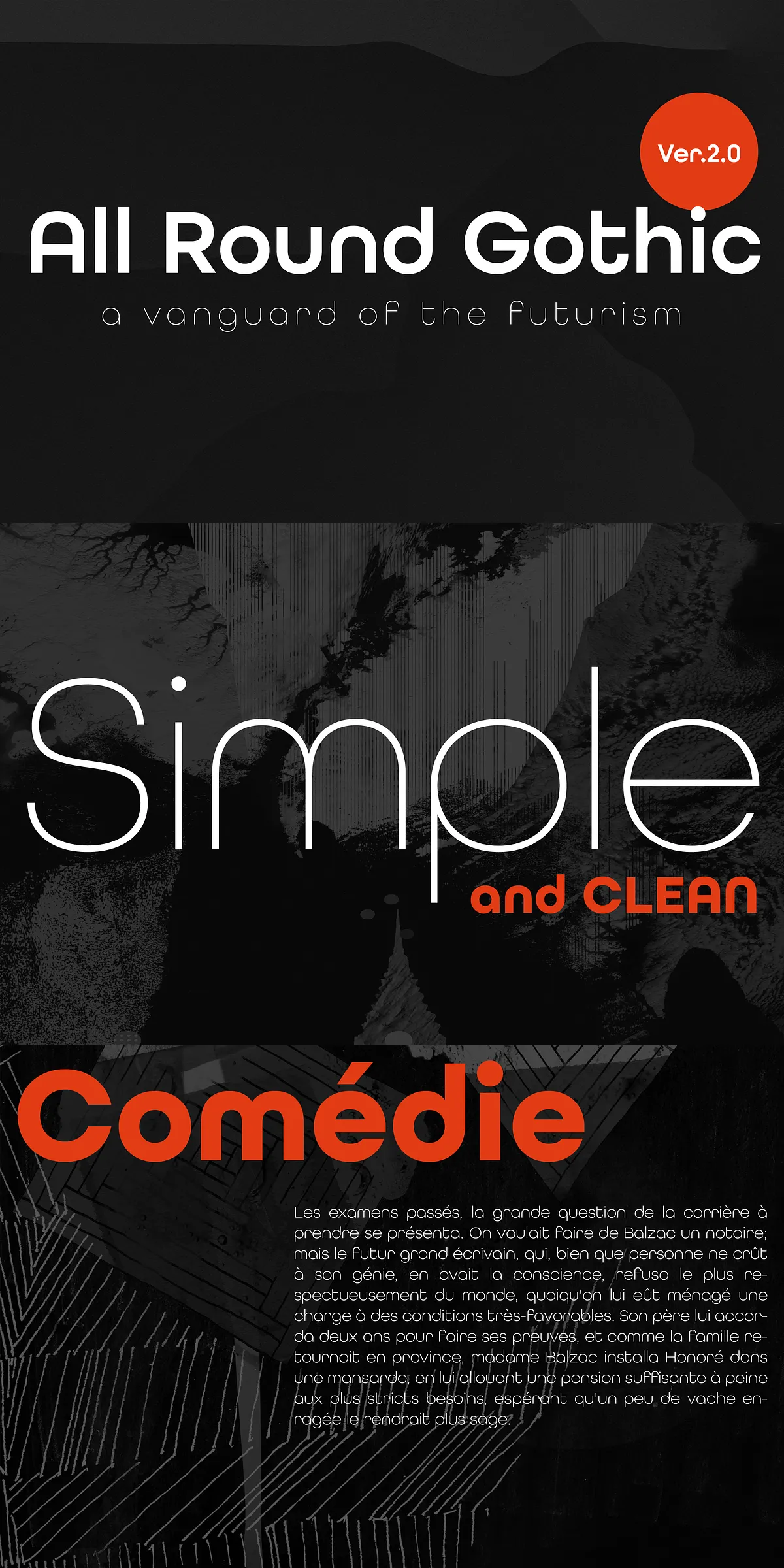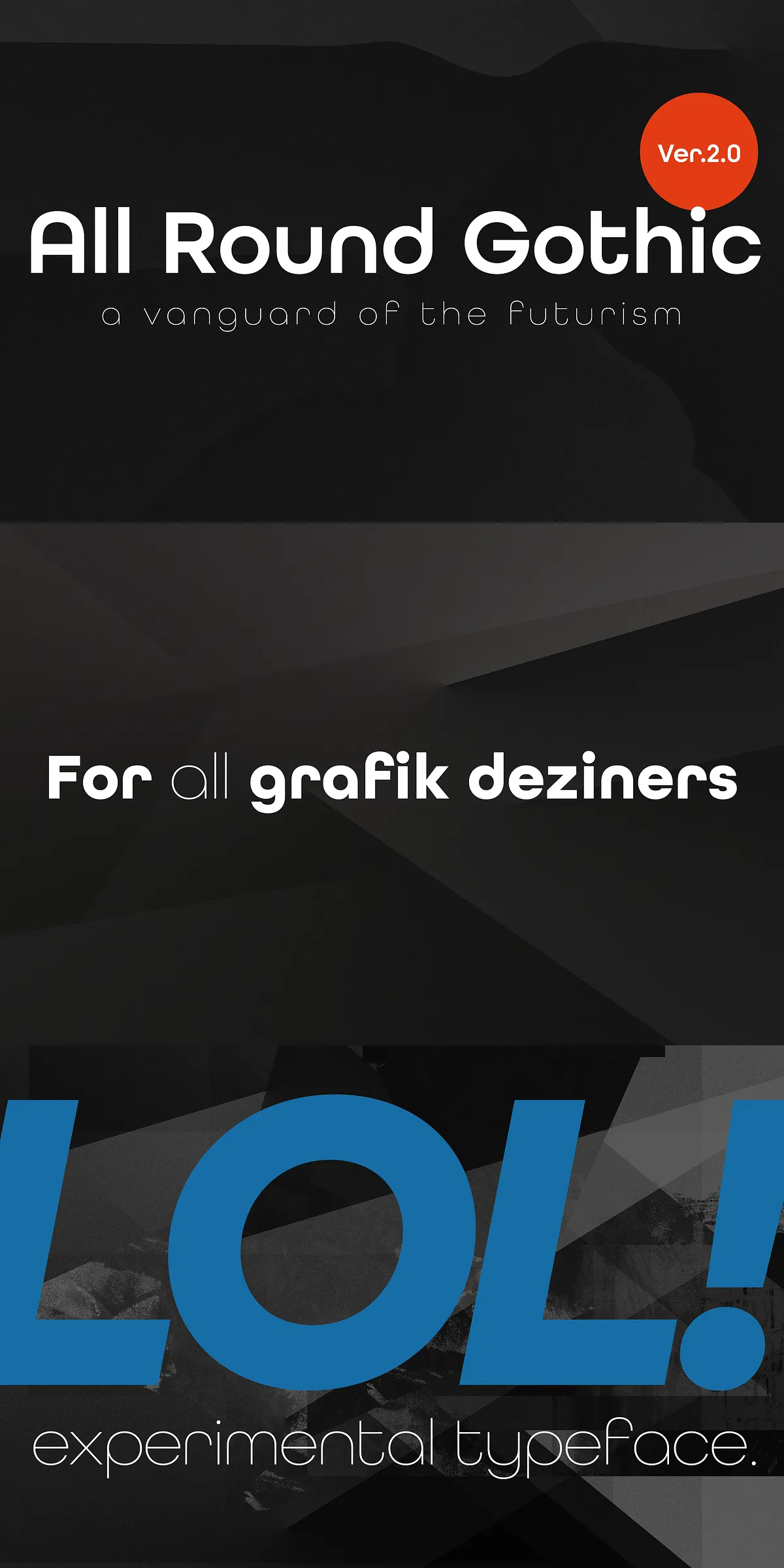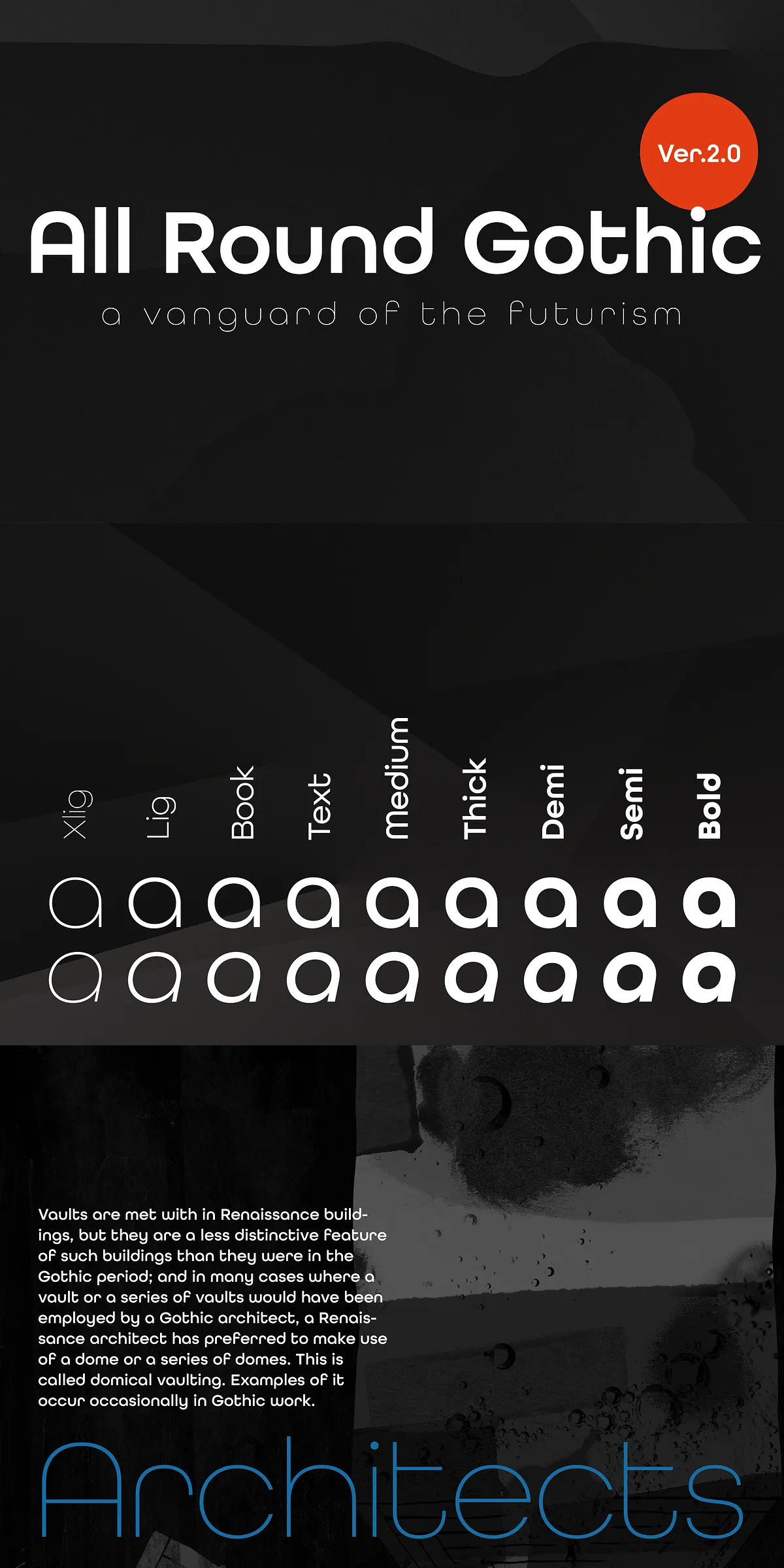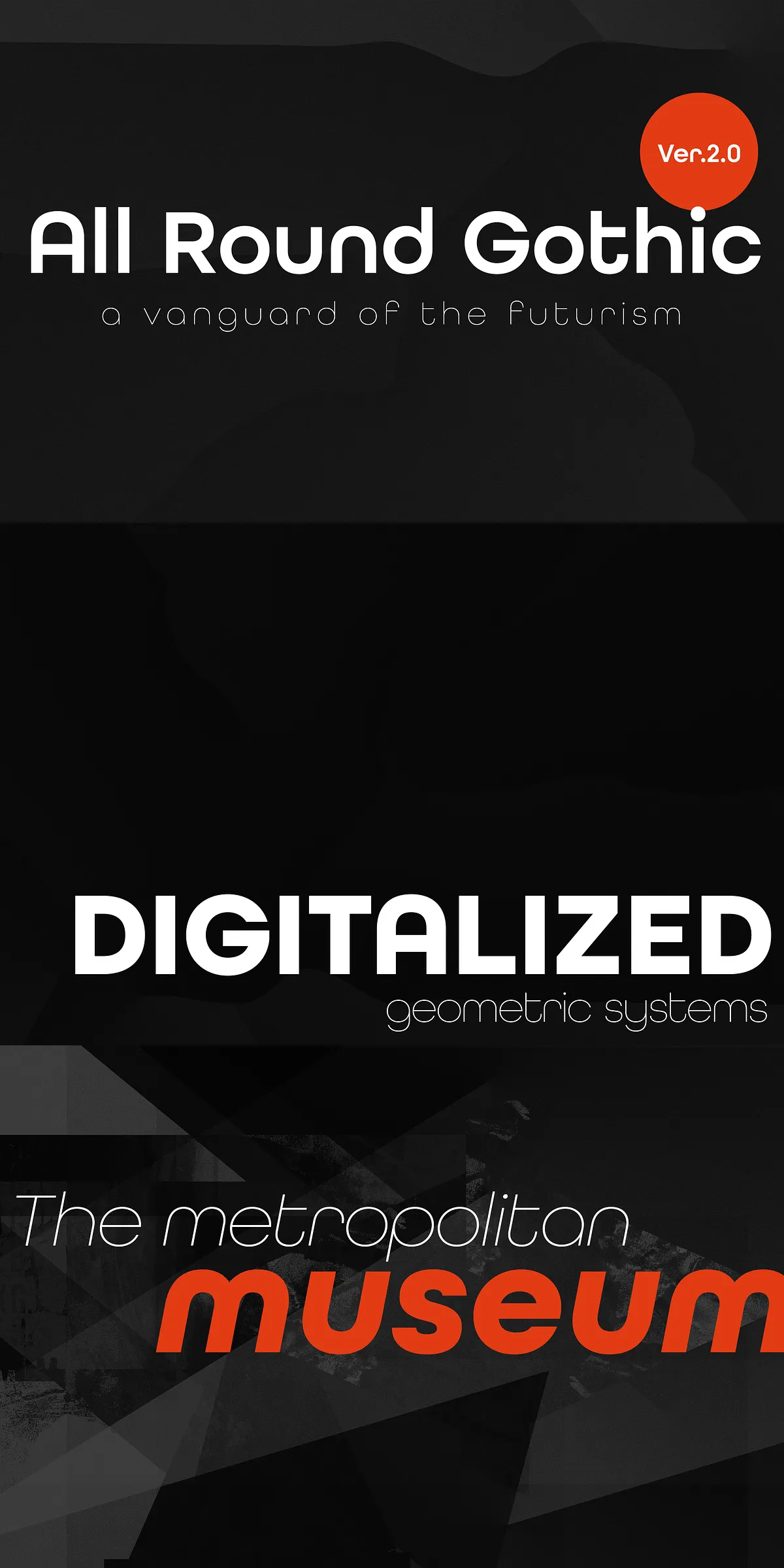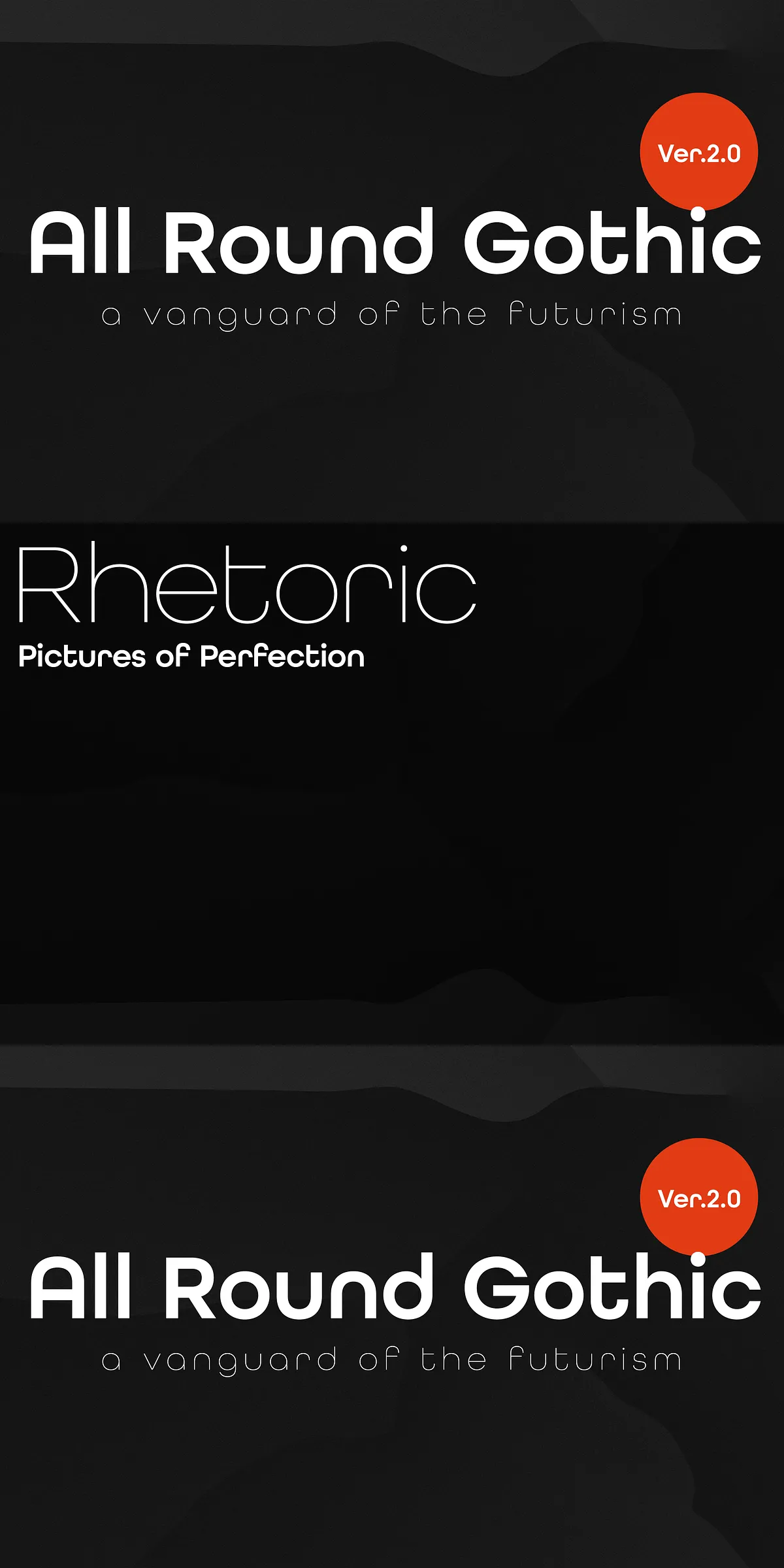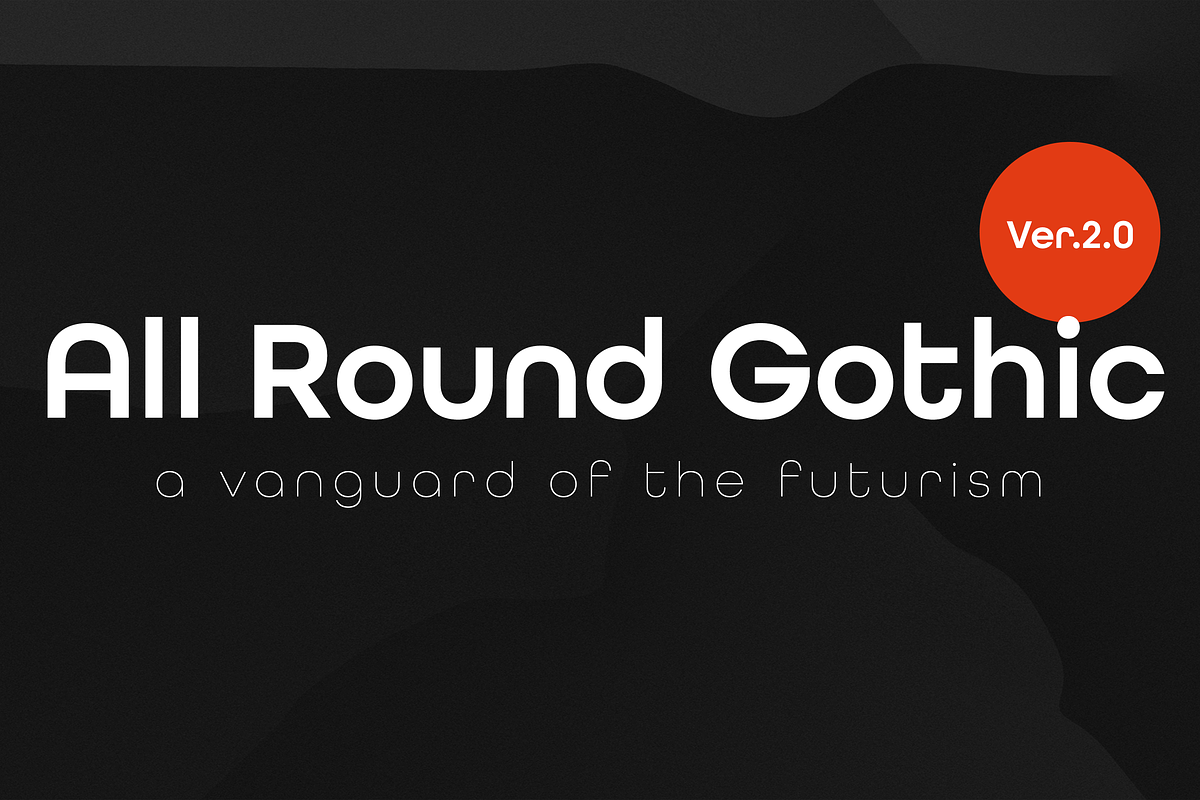
All Round Gothic
Step into the future of typography with All Round Gothic, a revolutionary geometric sans-serif font family meticulously crafted in 2012 by visionary designer Ryoichi Tsunekawa. Inspired by design icons like Avant Garde Gothic and Futura, this typeface defies convention by fusing rigid geometric structure with a surprisingly human touch. It’s not just a font—it’s a bold declaration of design evolution.
Engineered for Timeless Impact
All Round Gothic redefines what a geometric sans-serif can be. While it draws from the clean, structured lines of the 1920s modernist movement, it infuses a subtle imperfection that gives it life and soul. The elimination of unnecessary stems and the use of imperfectly circular bowl shapes create a softly organic quality—never cold, never sterile. This balanced tension between order and warmth makes every letterform feel intentional, alive, and deeply approachable.
Powerful Versatility Across Every Medium
From bold headlines to dense text blocks, from minimalist logos to cinematic animations, All Round Gothic adapts with confidence. Its robust 9-weight family—from delicate Light to commanding Black—gives designers absolute control over hierarchy and mood. The matching oblique styles further expand its capabilities, making it ideal for editorial layouts, branding systems, packaging, signage, and web interfaces.
• 9 Weights & Obliques: Deliver precise typographic control for every design need.
• High Legibility: Excellent readability in both large and small sizes.
• Stylistic Flexibility: Perfect for corporate identity, editorial design, fashion, and digital media.
• Built for Animation: Clean contours and consistent spacing ensure smooth motion in dynamic projects.
Leverage the Power of a Design Icon
Proof of its cultural resonance? All Round Gothic made a cameo in the global phenomenon Minions. This isn’t just a design curiosity—it’s a testament to its visual strength and instant recognizability. When you choose All Round Gothic, you’re not just using a font; you’re joining a legacy of design excellence that stands the test of time.
Why Designers Are Choosing All Round Gothic
It’s timeless. It’s bold. It’s warm. It’s precise. These qualities make it the go-to choice when you need a fresh, powerful alternative to overused sans-serifs. Whether you’re building a brand identity that feels both modern and human, launching a campaign with instant visual impact, or crafting a design that speaks with authenticity, All Round Gothic empowers you to lead, not follow.
Bring Your Vision to Life with Confidence
Unlock the full potential of your creative projects with All Round Gothic. Its balance of structure and soul transforms simple text into compelling visual storytelling. For designers who demand precision without rigidity, originality without clutter, and elegance without pretense—this is the typeface you’ve been searching for.
Embrace the future of geometric design. Embrace All Round Gothic—where form, function, and feeling meet.